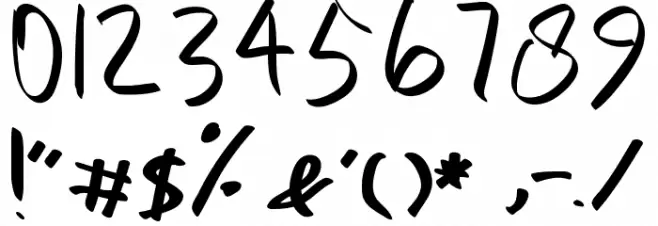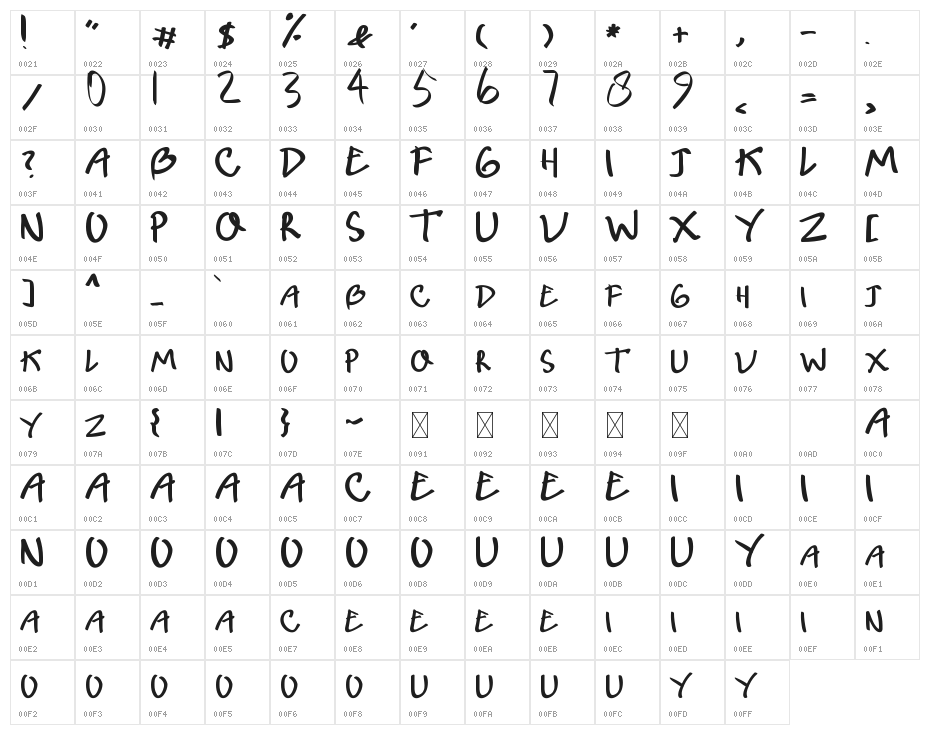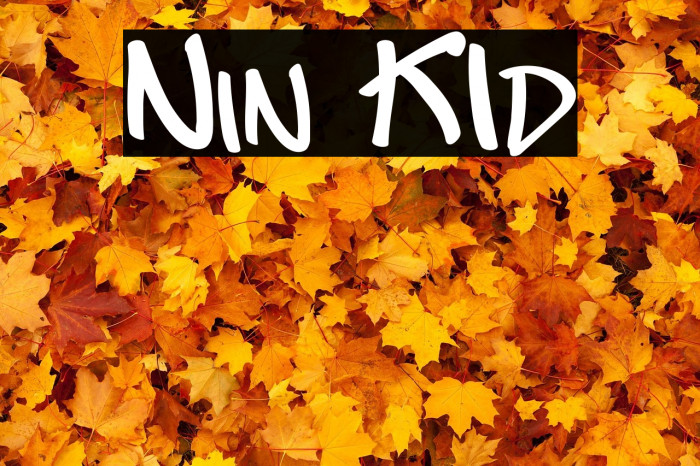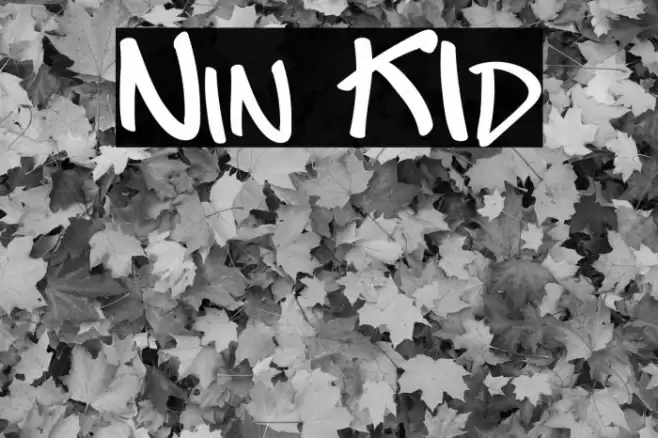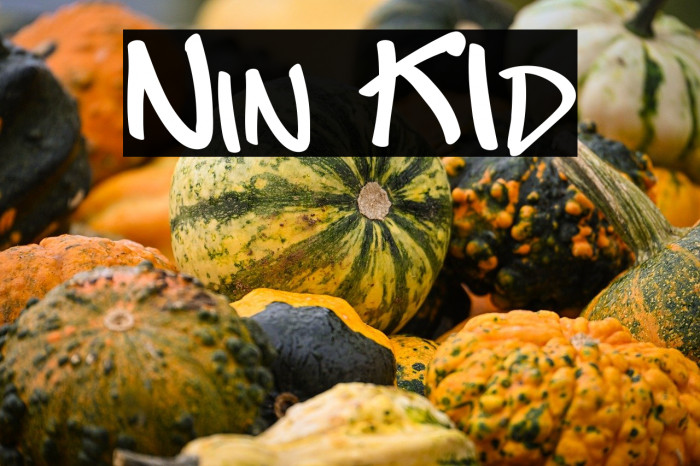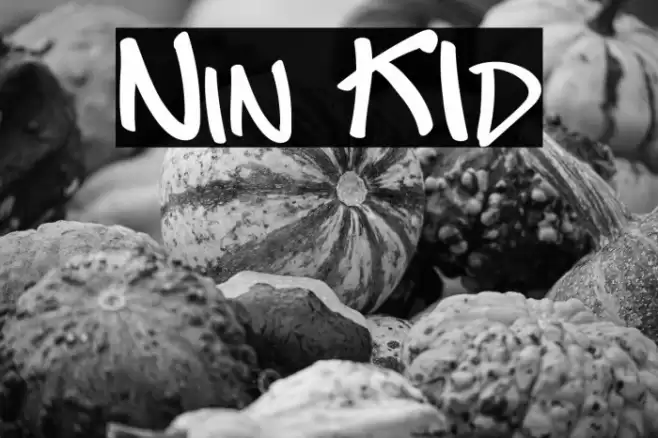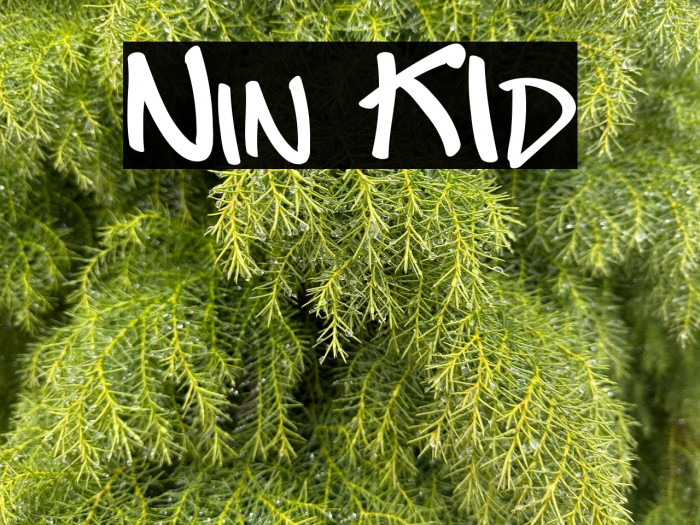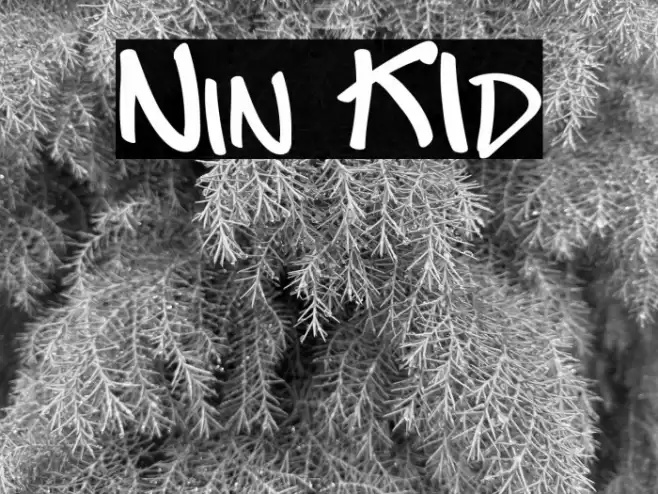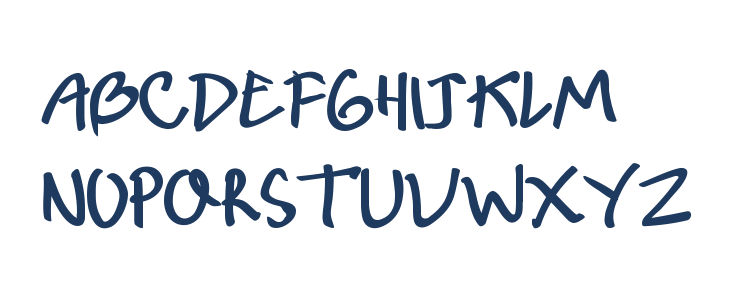
Nin KId Font
Nin KId Description
This font exudes a playful and energetic vibe with its handwritten style. The characters are bold and slightly irregular, giving it a casual and informal appearance. The strokes are thick and consistent, creating a strong presence on the page. The uppercase and lowercase letters maintain a cohesive look, while the numbers and special characters complement the overall design. This font is perfect for projects that require a personal touch or a sense of spontaneity.
Overall StyleCasual and playful
Use CaseHeadlines, Posters, Creative branding
Proposed ProjectsIdeal for greeting cards, children's books, posters, and creative branding projects.